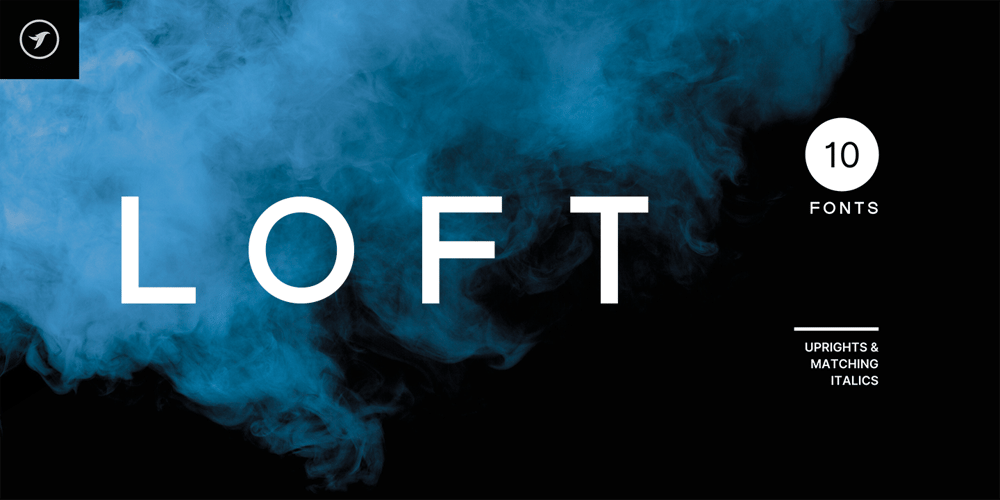
Loft Display
Loft Display font
Loft Display Font Family was designed by Jean Johnson and published by Designova. Loft Display contains 10 styles and family package options. LOFT is a modern and minimal font family that features a Sans Serif/Display/All-Caps style. This font family stands out due to its unique and distinctive design. It is best suited for creating branding, logotypes, headlines, corporate identities, and marketing materials for both web and print. When used for minimal designs, LOFT is particularly effective.Thanks to its efficient letter spacing options, this versatile font offers endless possibilities for modern and minimalist designs, including logos, headlines, and identities. Please see the included demographics to get an idea about the capability of this typeface when used for branding and marketing material design. To get a better idea of the capabilities of this font, please refer to the included demographics.